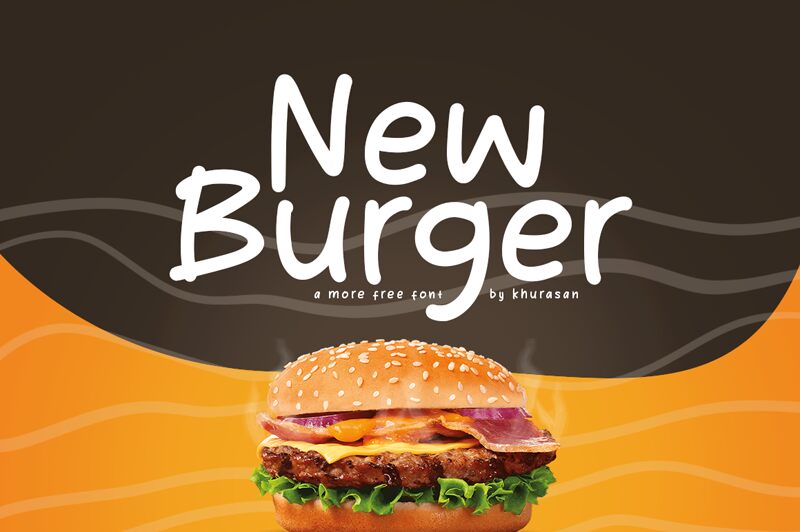
New Burger
New Burger, designed by Khurasan, is a delightful handwritten font that adds a touch of playfulness to any project. With its semi-light weight, it strikes the perfect balance between elegance and informality.
This versatile font is ideal for food blogs, recipe books, and restaurant menus. Its organic strokes and charming imperfections make it perfect for branding projects that aim to evoke a sense of warmth and authenticity. Whether used in print or digital media, New Burger effortlessly captures attention with its unique character and brings a deliciously creative flair to your designs.